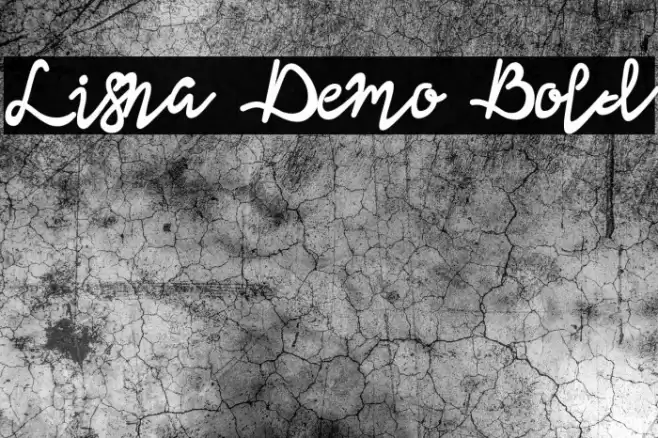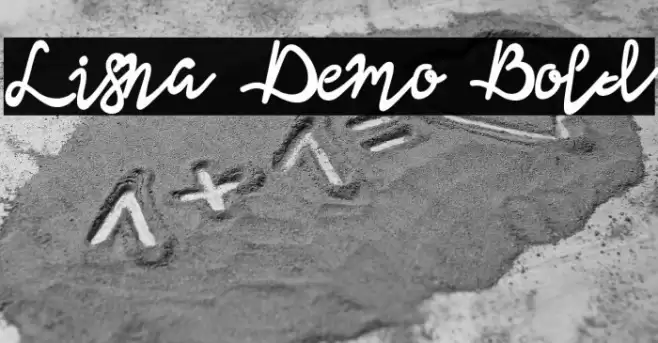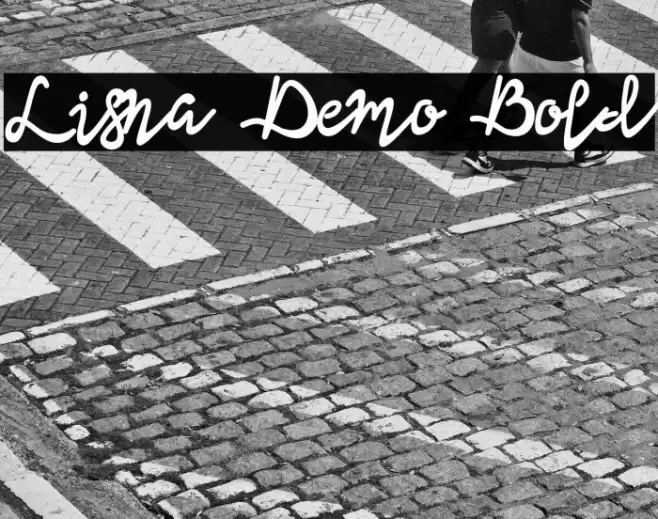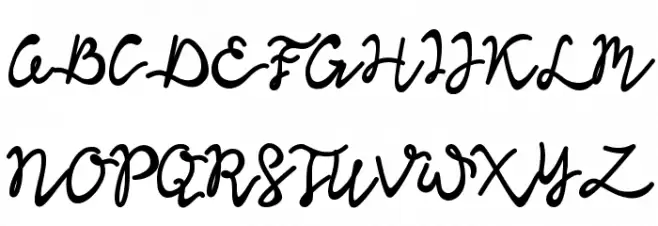
Lisna Demo Bold Font
Lisna Demo Bold Description
This font features a bold, cursive style with a playful and artistic flair. The letters are interconnected, creating a fluid and continuous script that mimics natural handwriting. The strokes are thick and expressive, adding a sense of dynamism and energy to the text. The uppercase and lowercase letters maintain a consistent style, with slight variations in the loops and curves that add character. This font is well-suited for creative projects where a personal touch is desired. Its boldness ensures readability while maintaining an elegant and sophisticated appearance.
A bold, cursive font with interconnected letters and a playful, artistic style from Uncategorized fonts.
- Proposed Projects: Ideal for invitations, greeting cards, branding, and creative design projects.
- Character Spacing: Tight
- Use Case: Logos, Headlines, Invitations